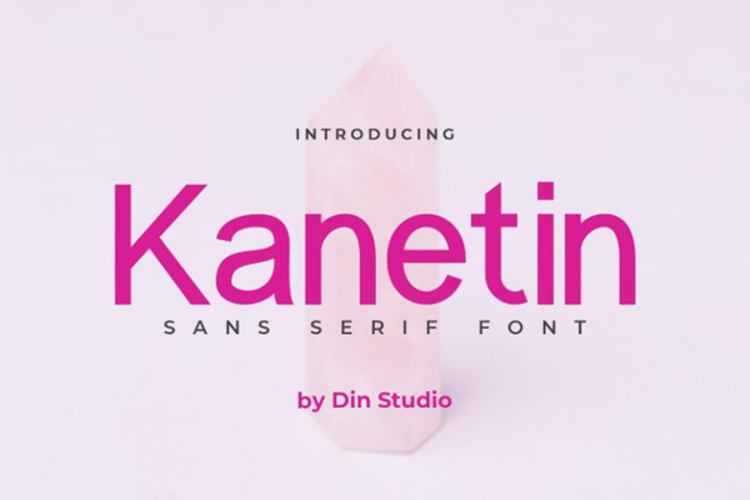
Kanetin Font
Kanetin is a beautiful sans serif font made for any professional project brandings which is perfect for printings, brandings, and quotes. Every letter has a unique and beautiful touch.
• Multilingual Supports
• Numerals and Punctuations